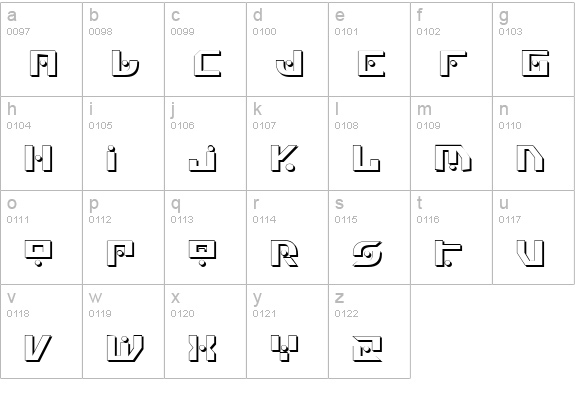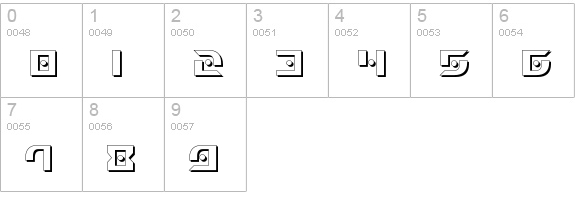
Generation Nth Shadow Font Details
Introducing Generation Nth Shadow font, a stunning typeface that exudes elegance and sophistication. This modern and versatile font features intricate shadow detailing that adds depth and dimension to any design project. With its sleek lines and unique style, Generation Nth Shadow font is perfect for creating eye-catching logos, branding materials, posters, and more. Whether you're looking to make a statement or add a touch of flair to your designs, this font is sure to impress. Best of all, Generation Nth Shadow font is free to download at FontsMarket.com. Don't miss out on the opportunity to enhance your projects with this beautiful and impactful font. Download it today and let your creativity shine with Generation Nth Shadow font.